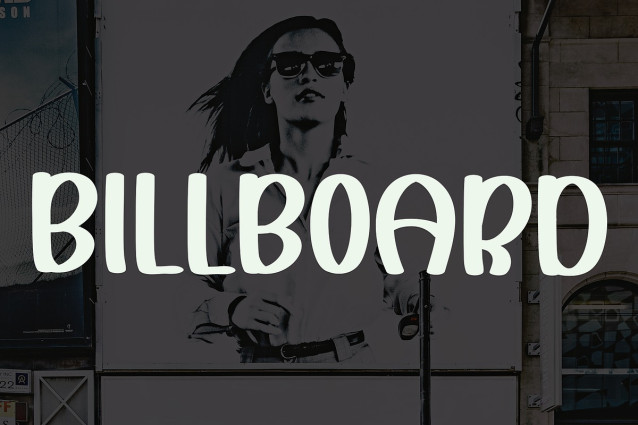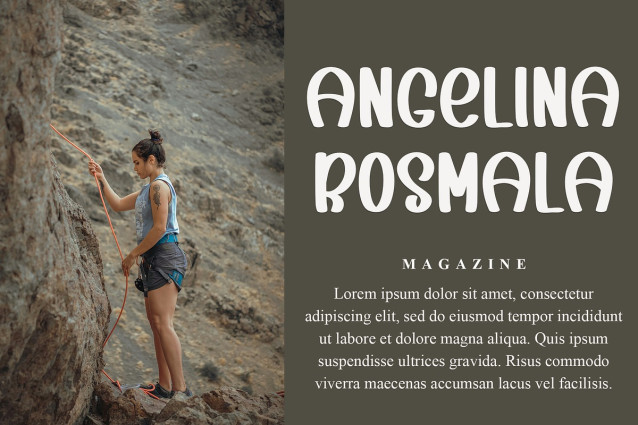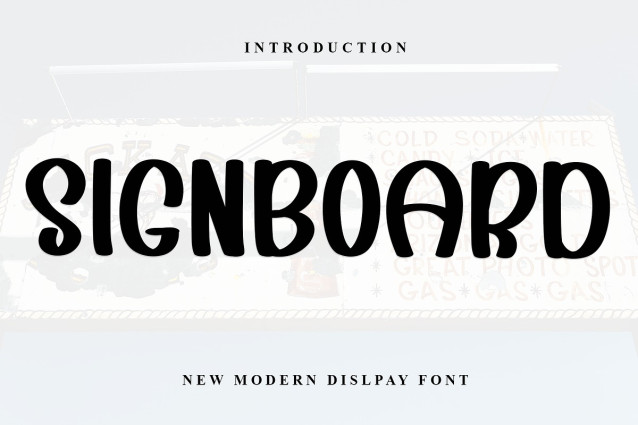
Signboard Playful Font
Signboard Playful Font is a beautiful and eye-catching font designed with a soft, unique touch. Its distinctive strokes give it a special character, making it meaningful and versatile for future use. With various characters, it’s perfect for design projects, crafts, and other creative works.